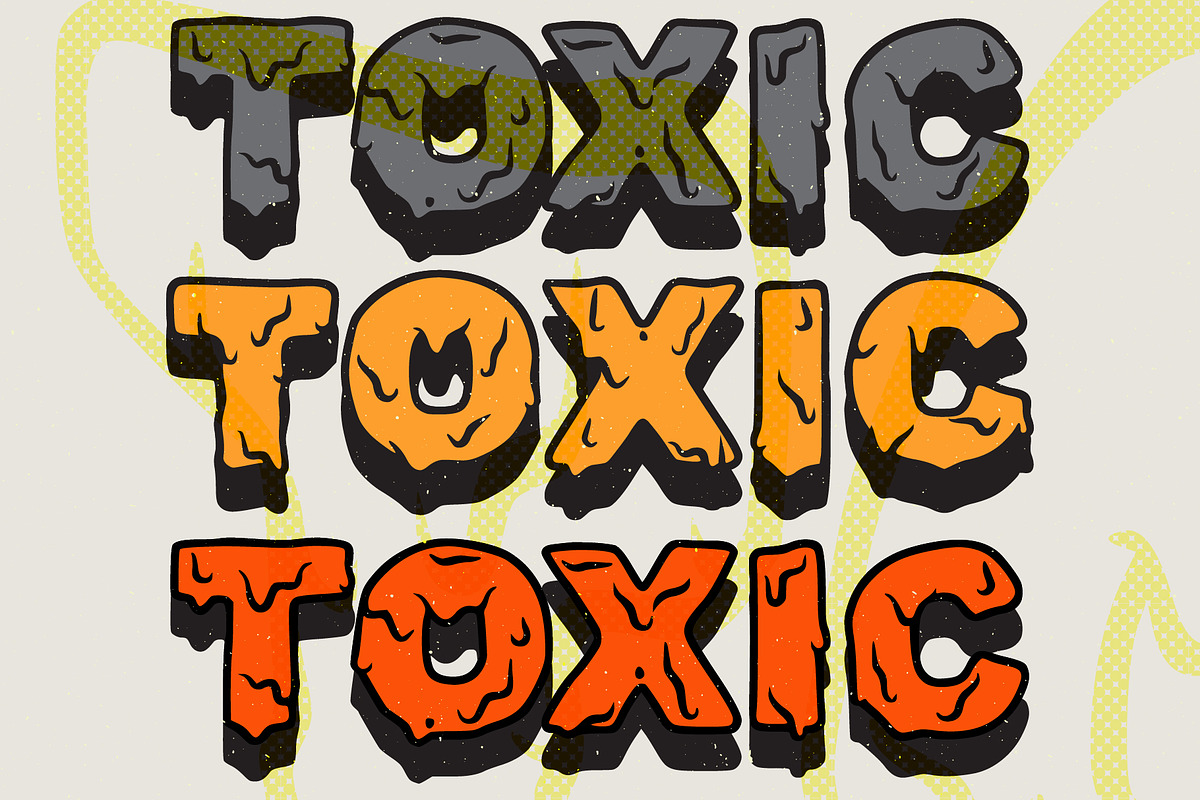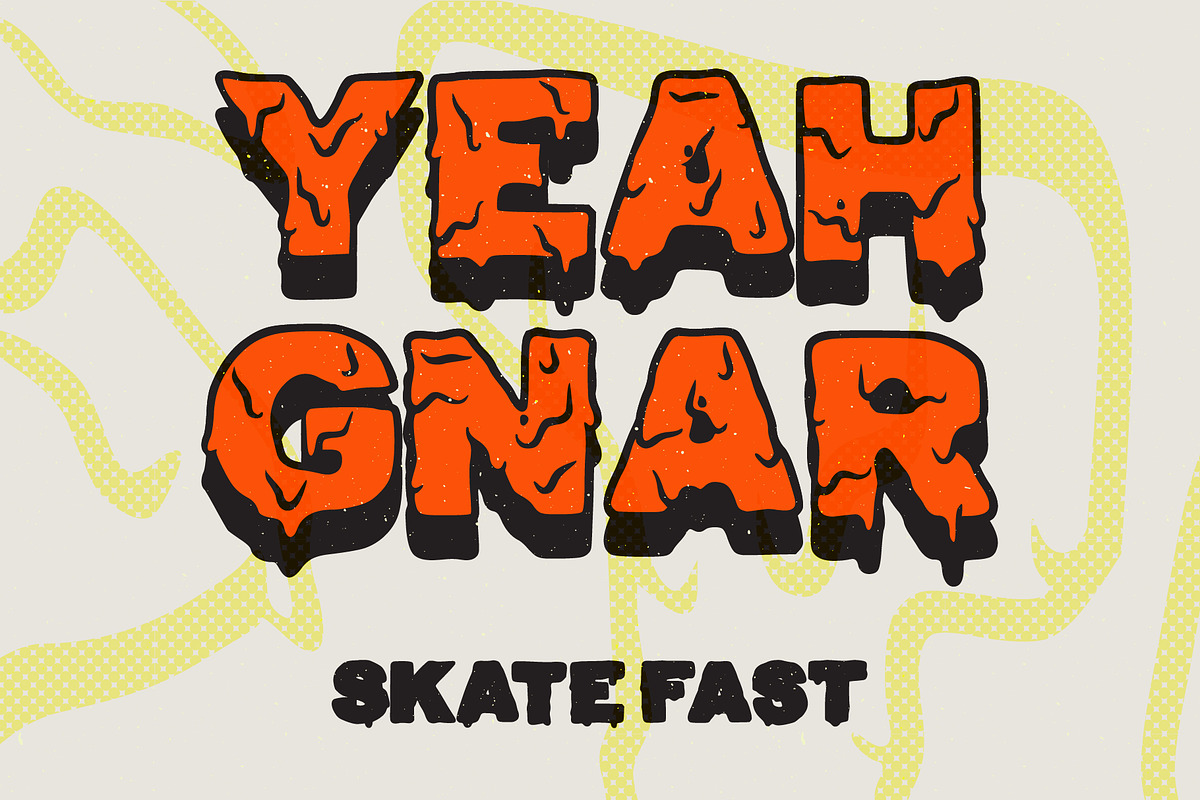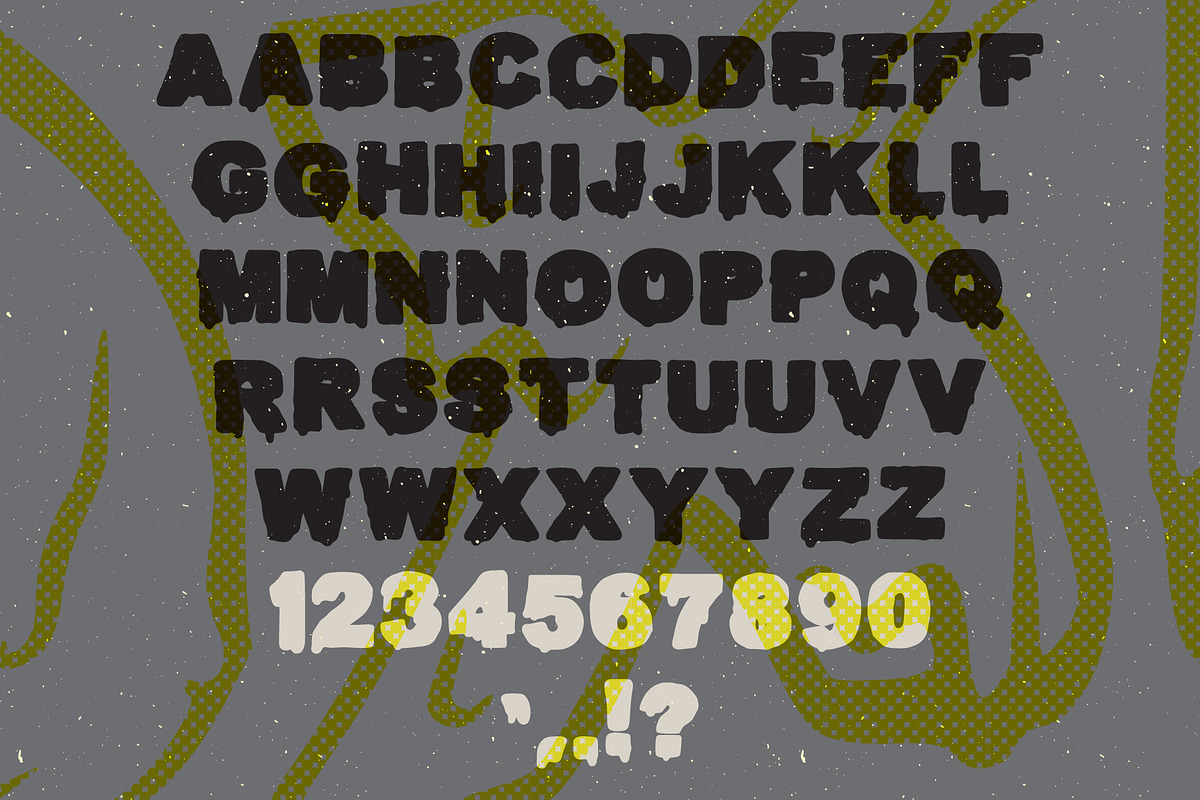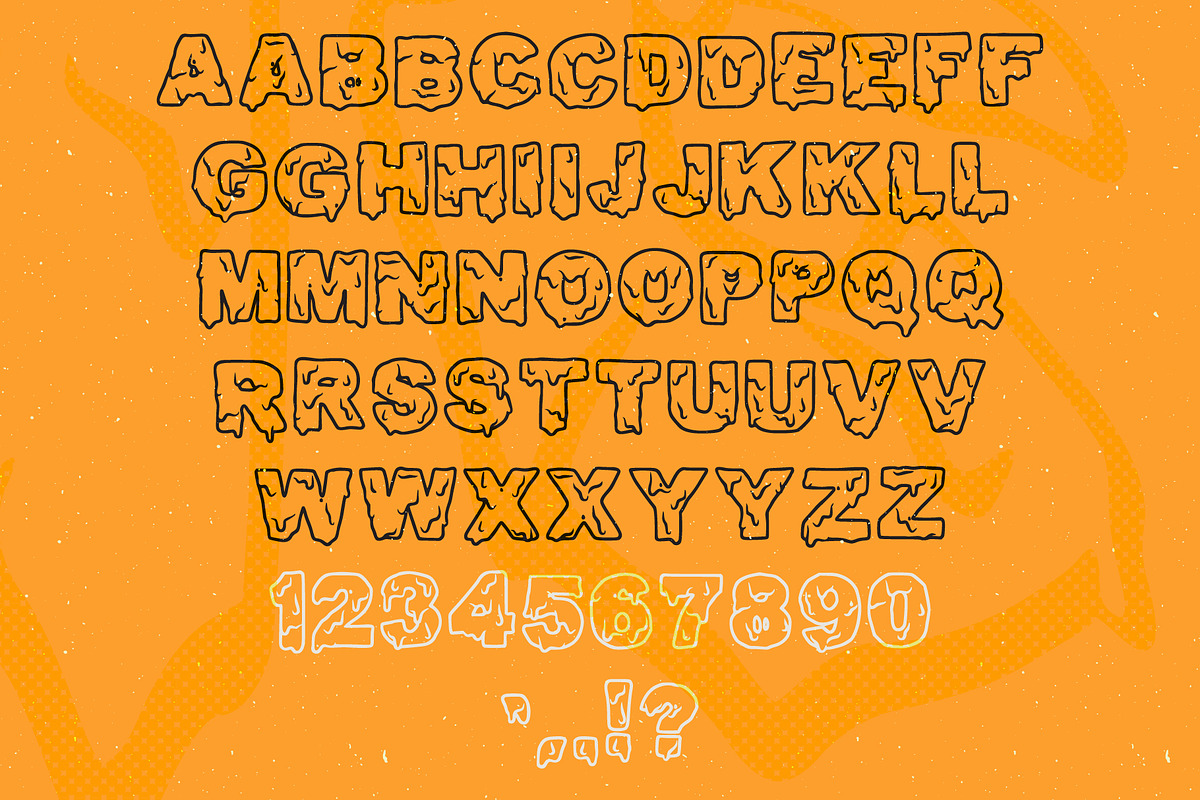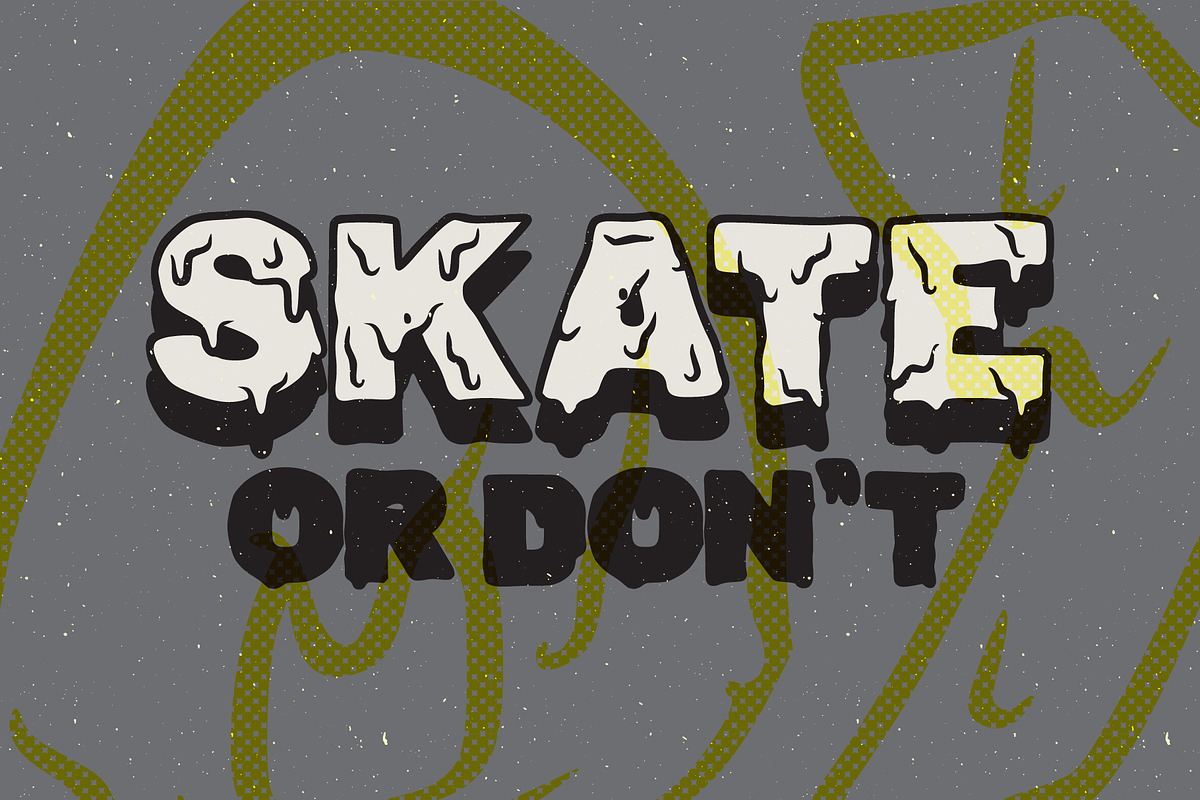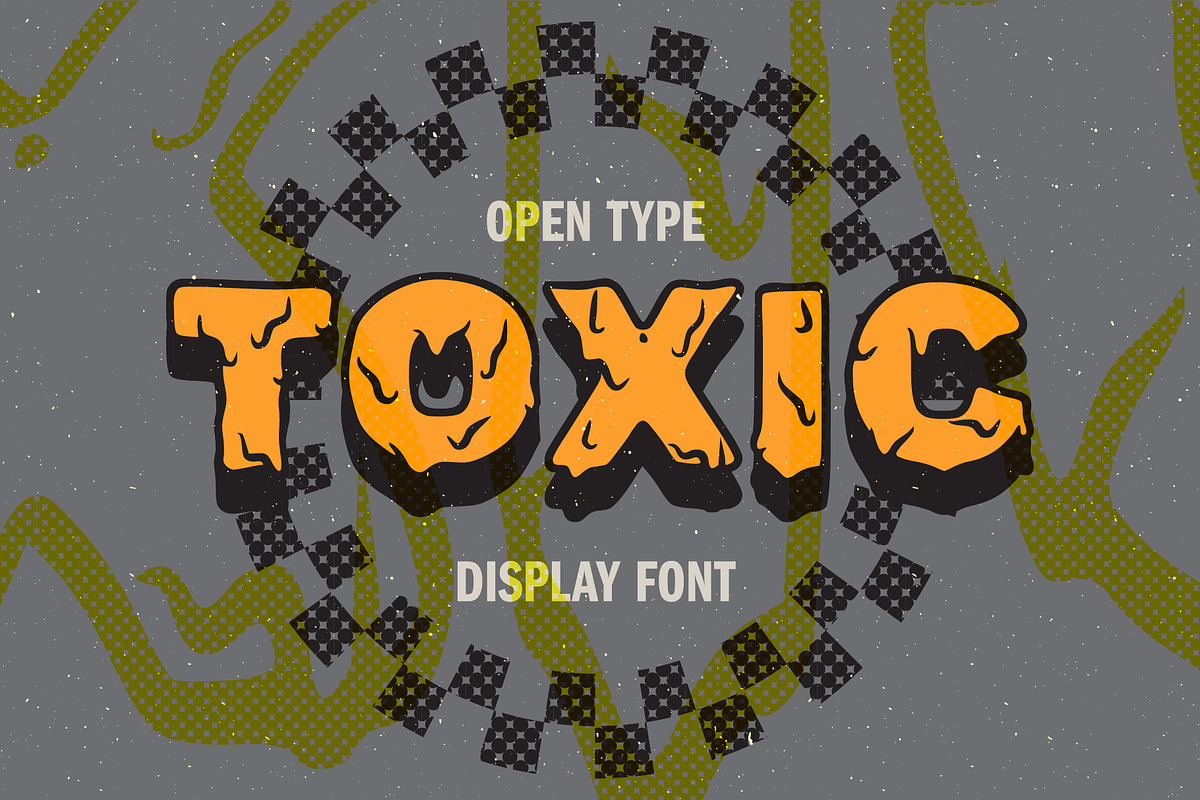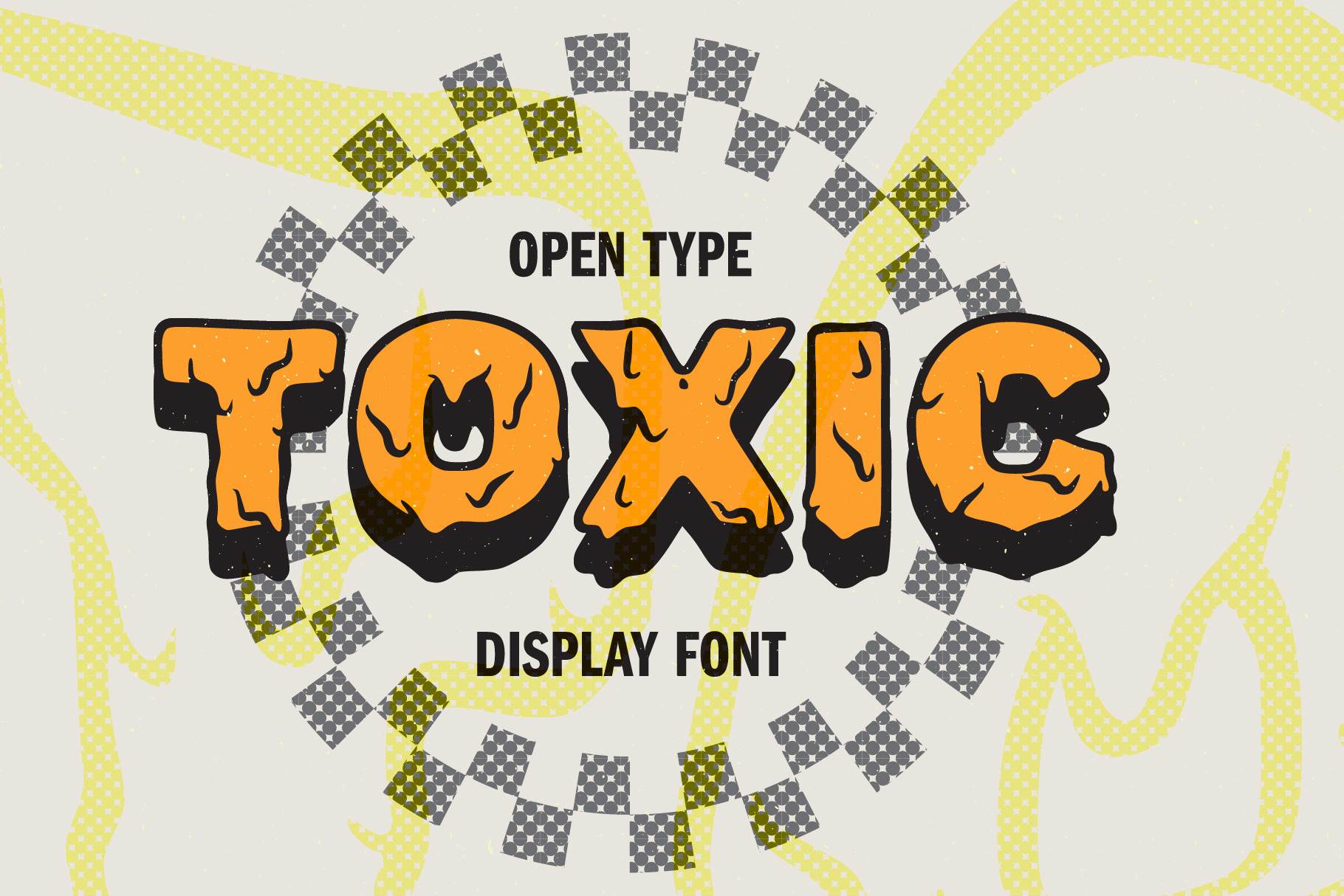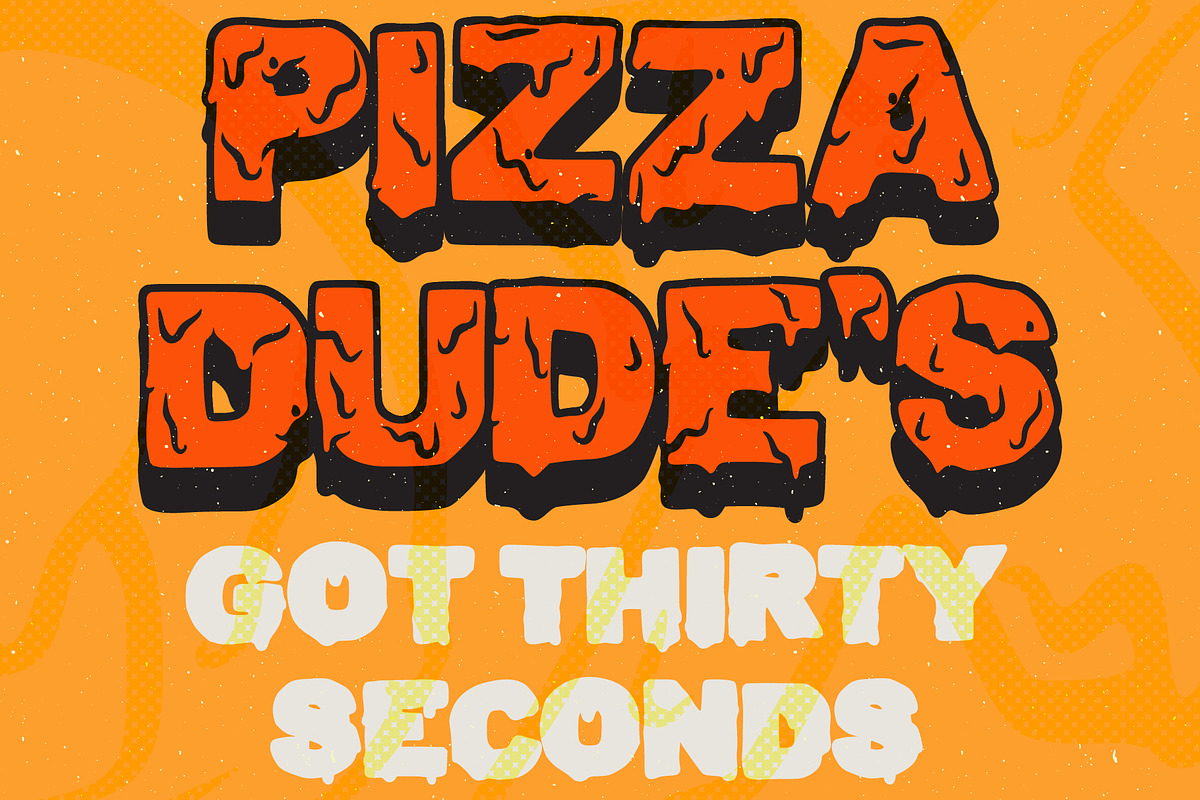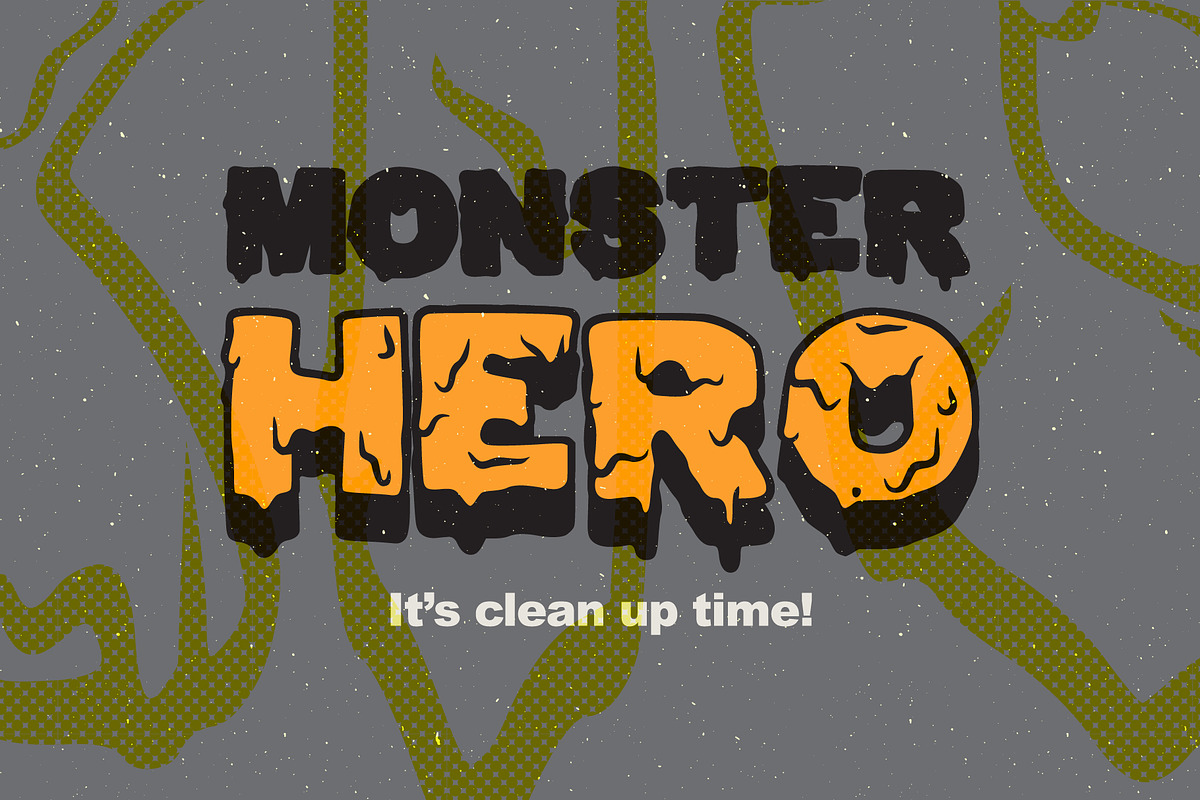
Toxic Font
A display font inspired by mutated vigilantes.
Uppercase Character Set A-Z
Alternate Characters
Numerals & Simple Punctuation
Outline and Fill font included